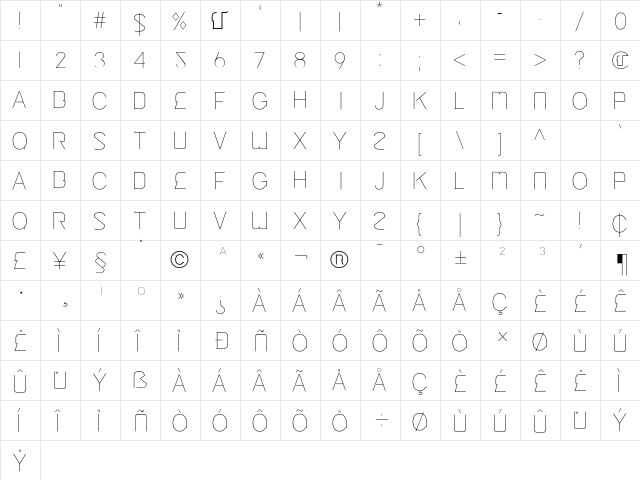
Cinga UltraLight
| Foundry | Daniel Angermann |
| Designer | Daniel Angermann |
Design Context for Cinga Typeface
Cinga offers clean, dependable letterforms without strong stylistic allegiance, making it a practical choice for designers who need flexibility. The delicate stroke weight brings airiness and refinement to layouts.